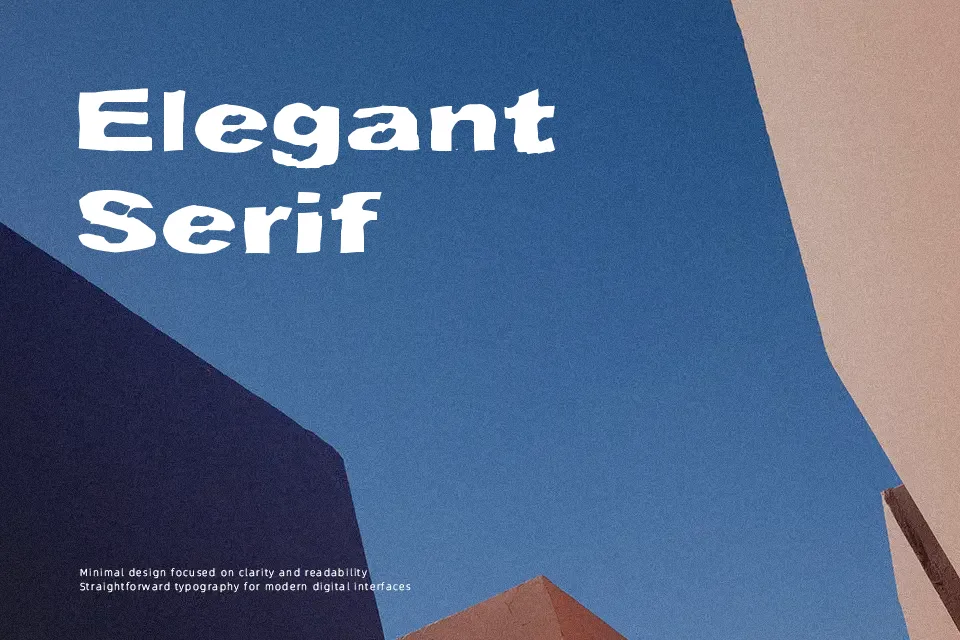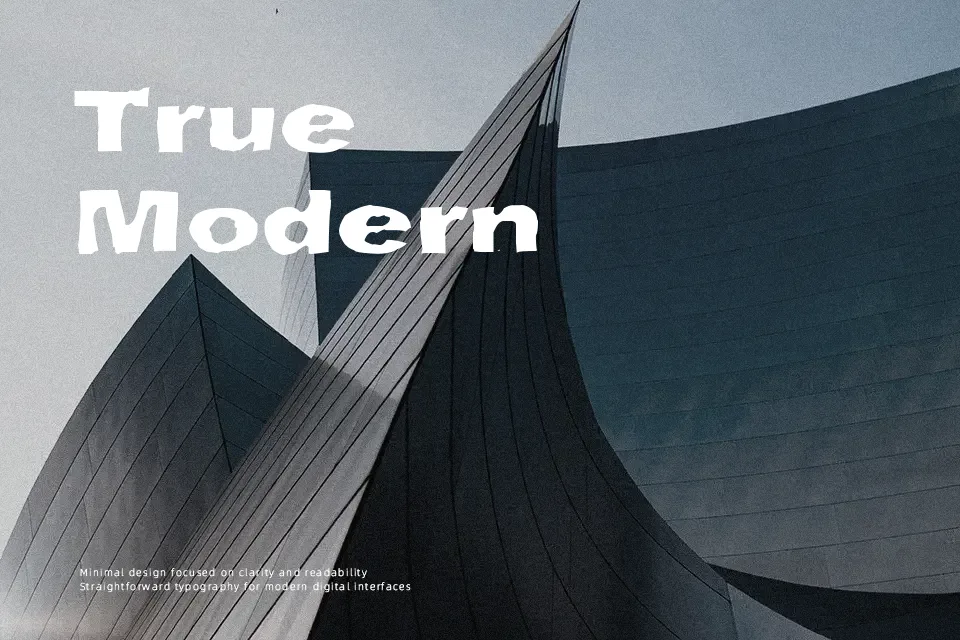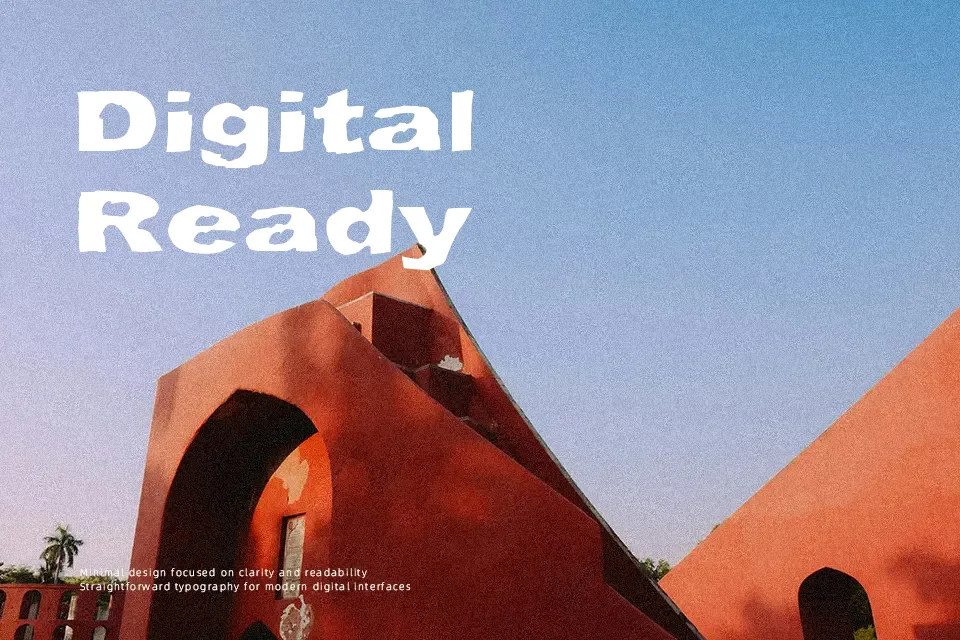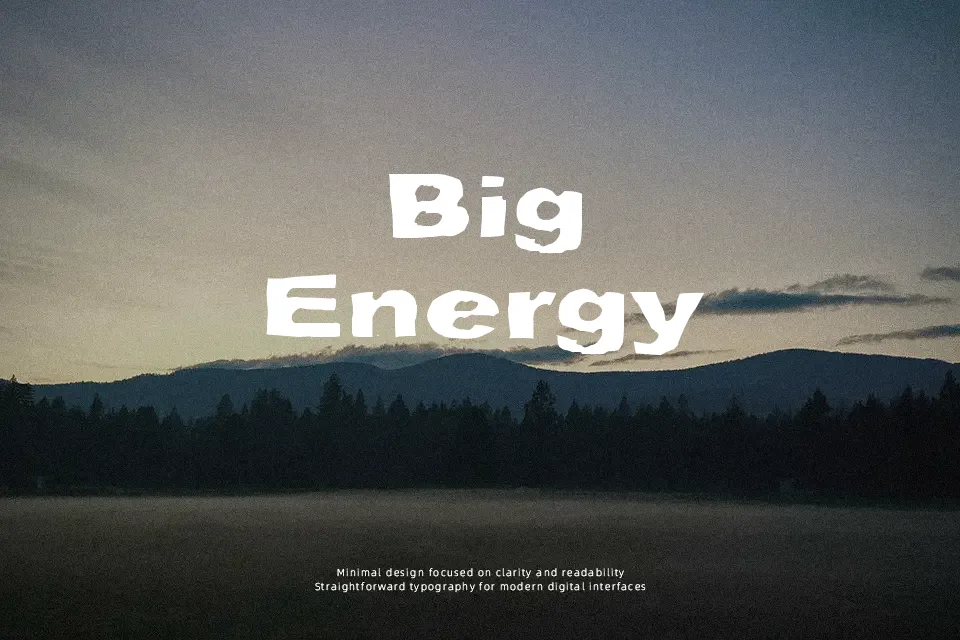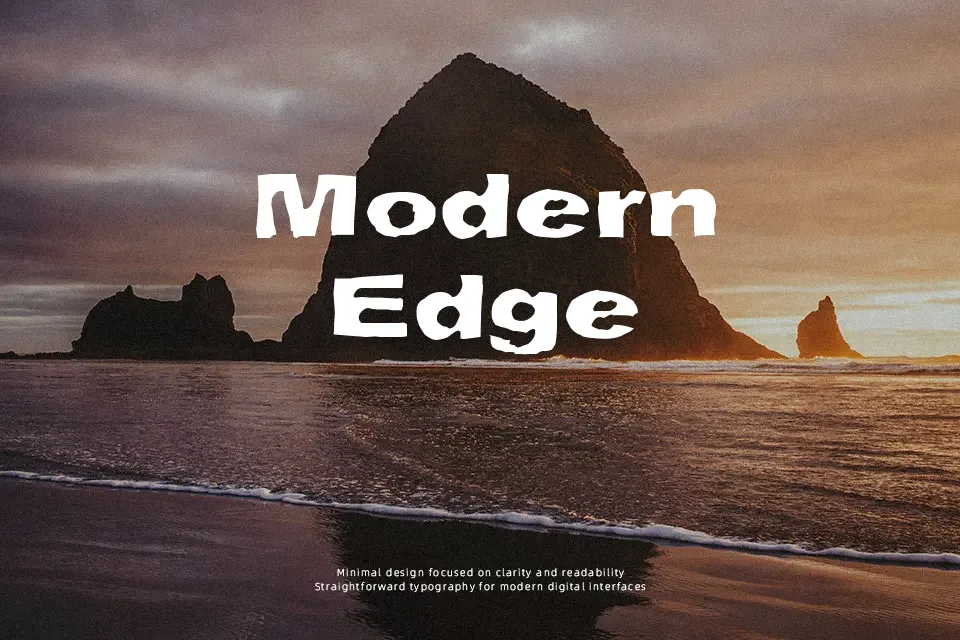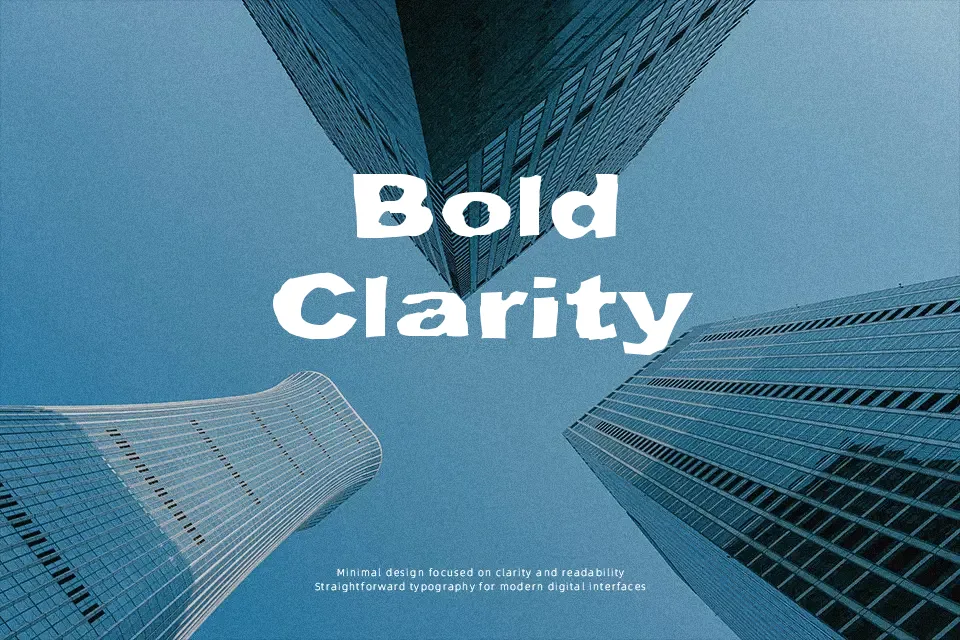
Syntax Error Font
Designed by Juha Korhonen
Syntax Error Font uses uneven, eroded outlines that give its uppercase-led letterforms a worn and fractured appearance. The strokes appear heavy overall, while the chipped edges interrupt otherwise simple display proportions and create a deliberately rough rhythm across words. Spacing works best when text is kept short and set large enough for the distressed details to remain visible. It suits forceful headlines, cover artwork, and graphic statements rather than informational copy. The texture gives large lettering a distinct presence, but small sizes and dense settings can make individual forms harder to separate.
Best For: music posters,dark apparel graphics,album cover titles,large event headlines
Perfect for advertising, headline, and music, with a dark and decorative style.